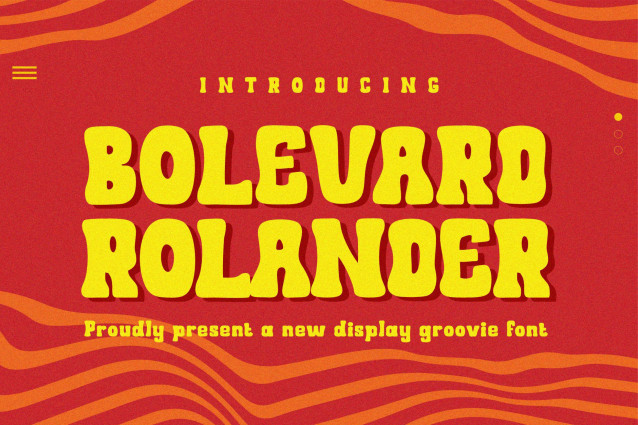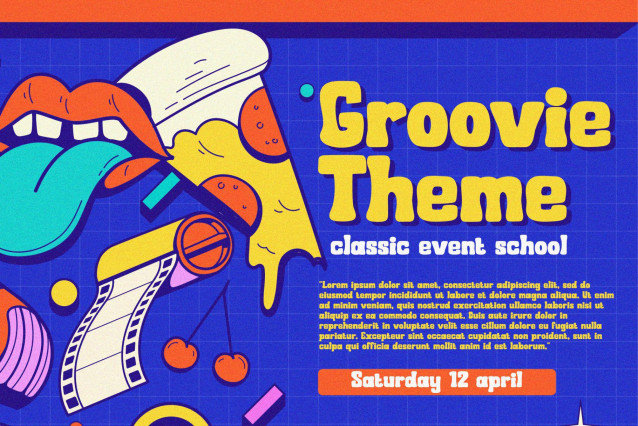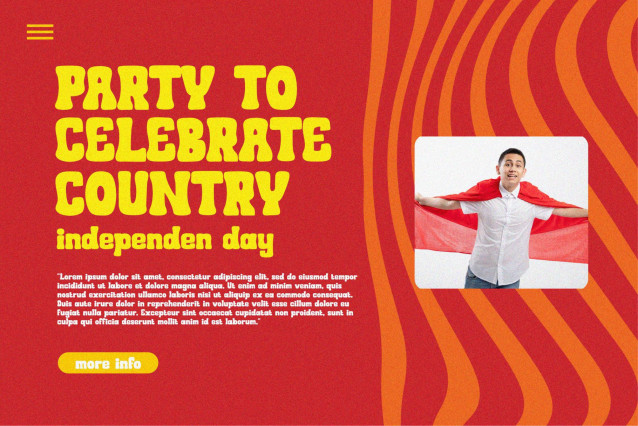
Bolevard Rolander Font
Introducing Bolevard Rolander The New Bold vintage boho Unique Display Font is a modern, trendy, bouncy and cute display font. It has a unique character with wood theme. It is perfect to be combined with invitation card designs, company logos, movie titles, movie names, business cards, book titles, brand names and various other designs.